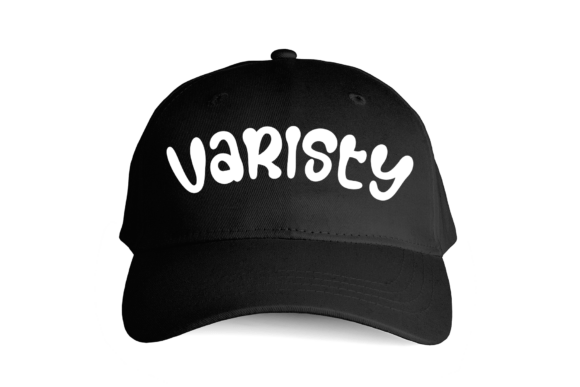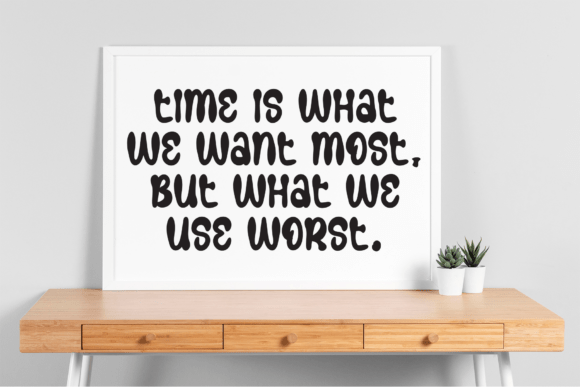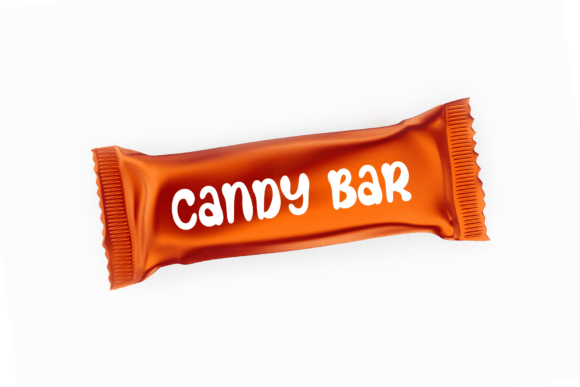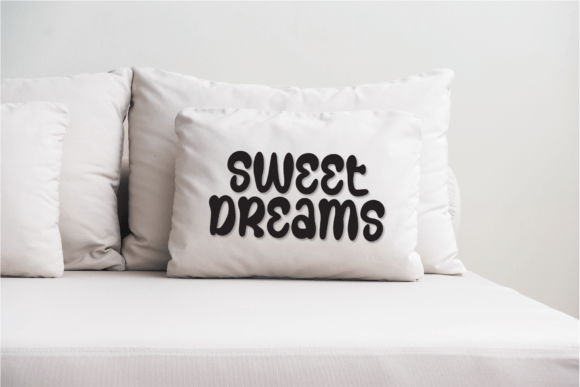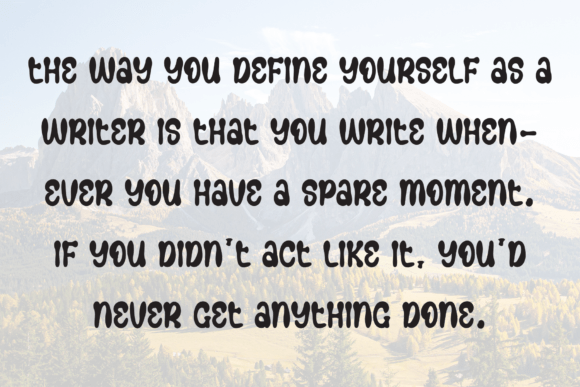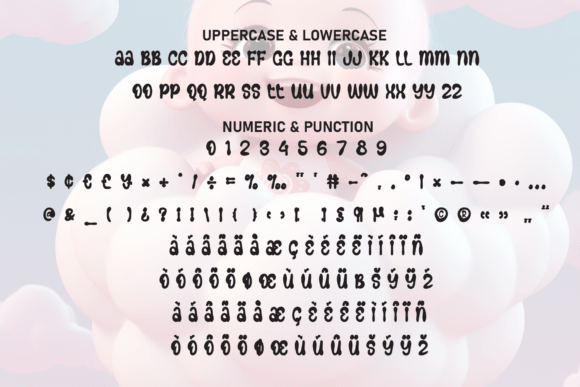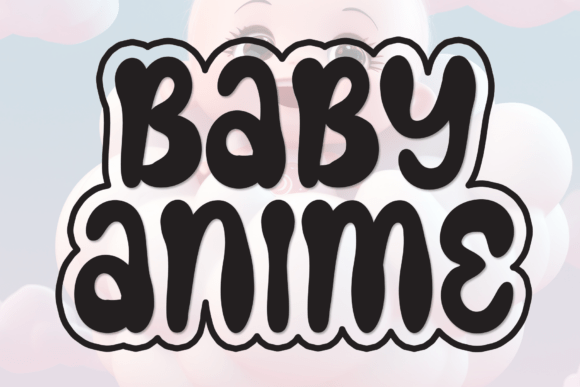
Baby Anime Font: The Perfect Blend of Modern Simplicity and Playful Charm
In the world of design, fonts play a crucial role in conveying the tone and personality of a project. For designers and crafters looking for a font that embodies a casual, yet stylish vibe, Baby Anime Font is an excellent choice. This article will explore the features, benefits, and uses of Baby Anime Font, and why it’s becoming a popular choice for various design projects.
What is Baby Anime Font?
Baby Anime Font is a casual display font that seamlessly blends modern simplicity with a playful, approachable charm. Its clean shapes, soft edges, and well-balanced letterforms make it an ideal choice for designers seeking a font that exudes a relaxed yet stylish feel. The font’s design is characterized by its:
• Clean Shapes: The font features simple, uncomplicated shapes that give it a modern and fresh look.
• Soft Edges: The soft edges add a touch of playfulness and approachability to the font, making it perfect for designs that require a friendly tone.
• Well-Balanced Letterforms: The letterforms are carefully crafted to ensure that the font is easy to read and visually appealing.
Key Features of Baby Anime Font
Baby Anime Font offers several key features that make it an attractive choice for designers and crafters:
• Versatility: The font is suitable for a wide range of design projects, including posters, branding, packaging, and social media graphics.
• Readability: The font’s clean design and well-balanced letterforms ensure that it is easy to read, even at smaller sizes.
• Personality: The font’s playful and approachable vibe adds a touch of personality to any design project.
• Eye-Catching Appeal: The font’s unique blend of modern simplicity and playful charm makes it stand out from more traditional fonts.
Benefits of Using Baby Anime Font
The benefits of using Baby Anime Font in design projects are numerous:
• Fresh and Friendly Touch: The font adds a fresh and friendly touch to any design project, making it perfect for brands and designers looking to convey a playful and approachable tone.
• Easy to Pair: The font’s simple and clean design makes it easy to pair with other fonts, allowing designers to create unique and visually appealing combinations.
• Highly Legible: The font’s well-balanced letterforms and clean design ensure that it is highly legible, even at smaller sizes.
Use Cases for Baby Anime Font
Baby Anime Font is a versatile font that can be used in a variety of design projects, including:
• Posters: The font’s bold and playful design makes it perfect for posters, flyers, and other promotional materials.
• Branding: The font’s friendly and approachable vibe makes it an excellent choice for branding projects, such as logos and business cards.
• Packaging: The font’s clean and modern design makes it suitable for packaging design, adding a touch of style and sophistication to product packaging.
• Social Media Graphics: The font’s playful and eye-catching appeal makes it perfect for social media graphics, such as Instagram posts and Facebook graphics.
In conclusion, Baby Anime Font is a unique and versatile font that offers a perfect blend of modern simplicity and playful charm. Its clean shapes, soft edges, and well-balanced letterforms make it an excellent choice for designers and crafters looking for a font that adds a fresh and friendly touch to their design projects. With its high legibility, ease of use, and eye-catching appeal, Baby Anime Font is an excellent addition to any design toolkit.
Whether you’re a designer, crafter, or simply someone looking for a font that embodies a playful and approachable vibe, Baby Anime Font is definitely worth checking out. Its versatility, readability, and personality make it an excellent choice for a wide range of design projects, from posters and branding to packaging and social media graphics.